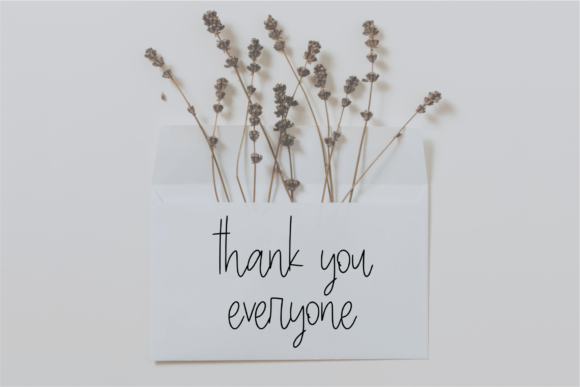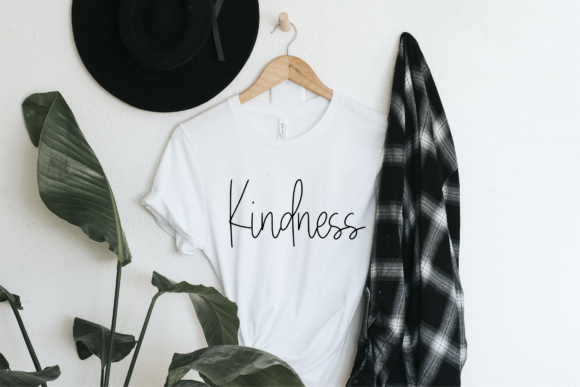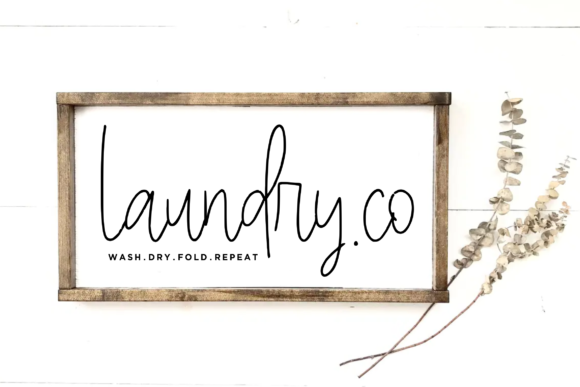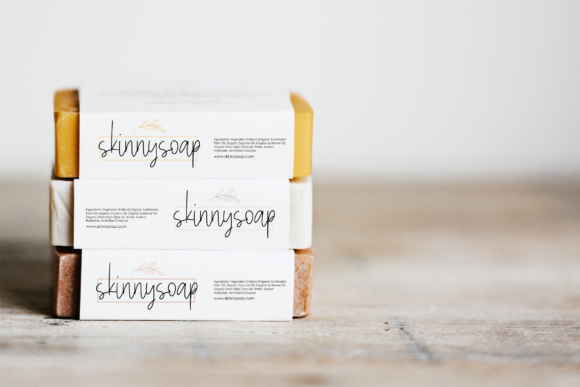
About Sketchthiny Font
Sketchthiny is a delicate and elegant handwritten font. Its distinct and well balanced letters make this font a masterpiece. Fall in love with its incredibly versatile style and use it to create spectacular designs!